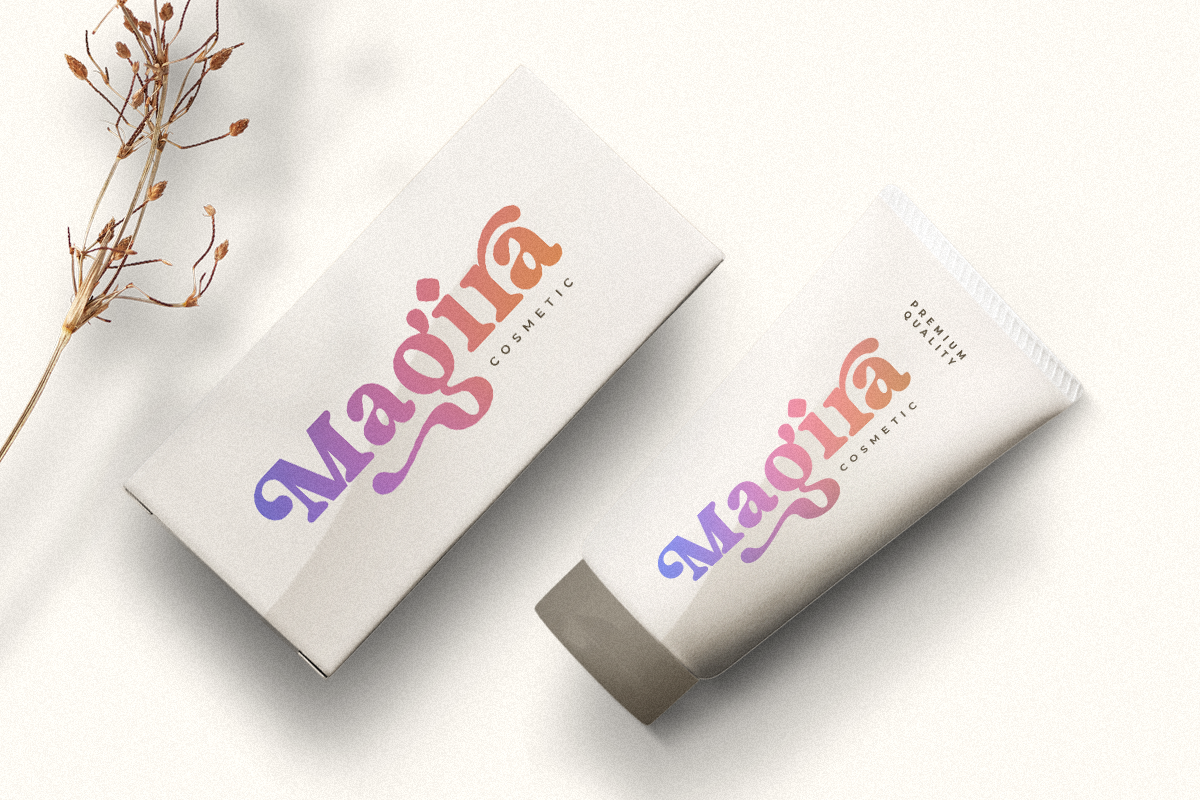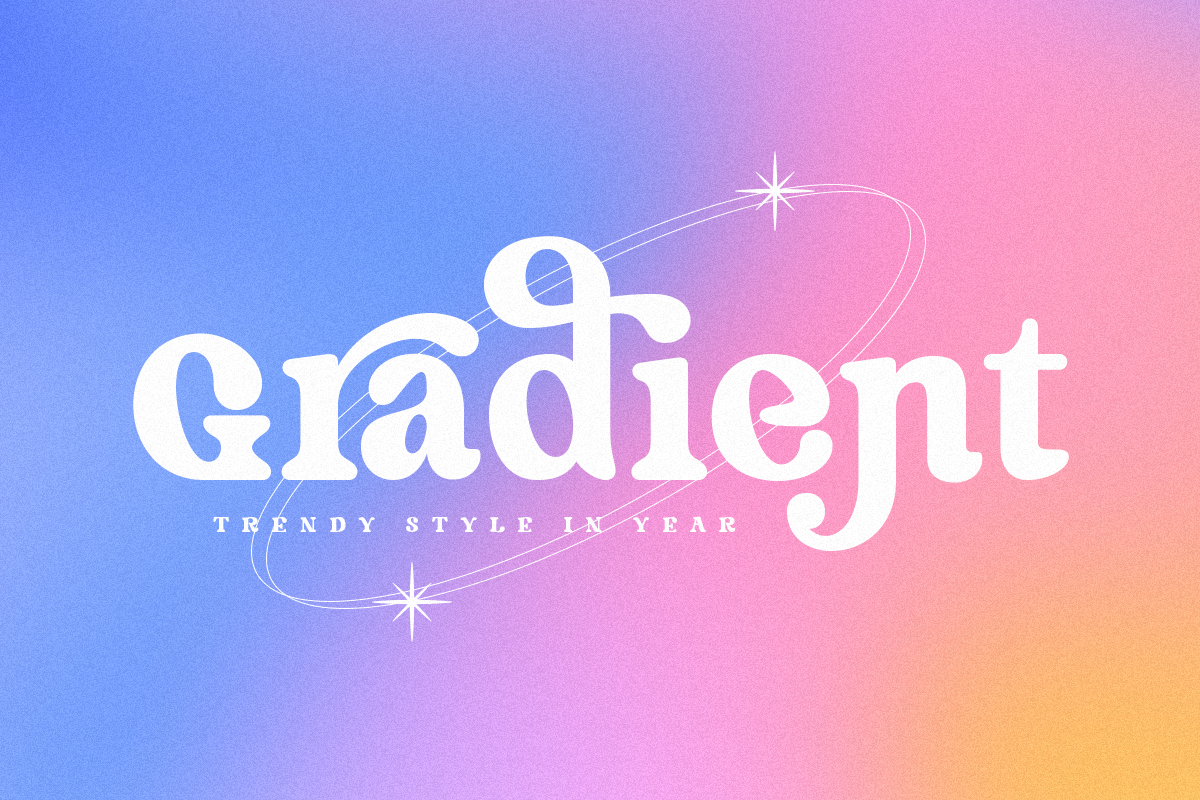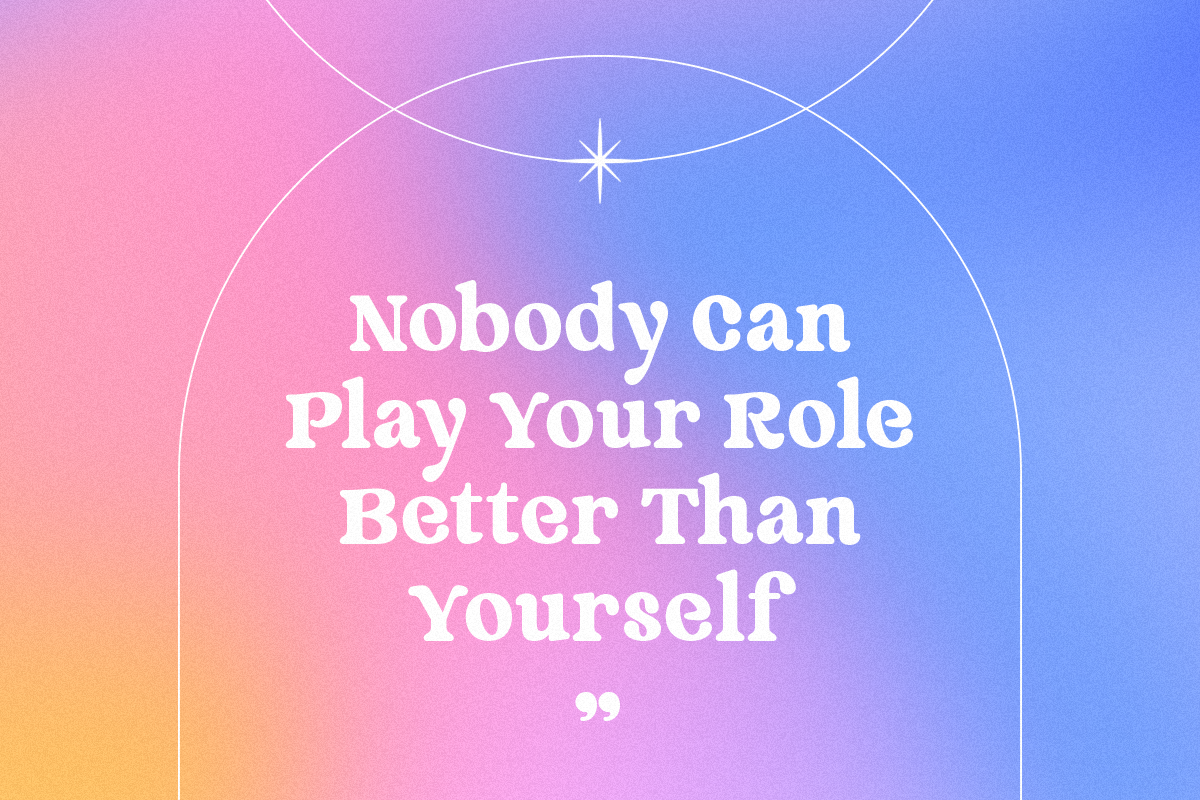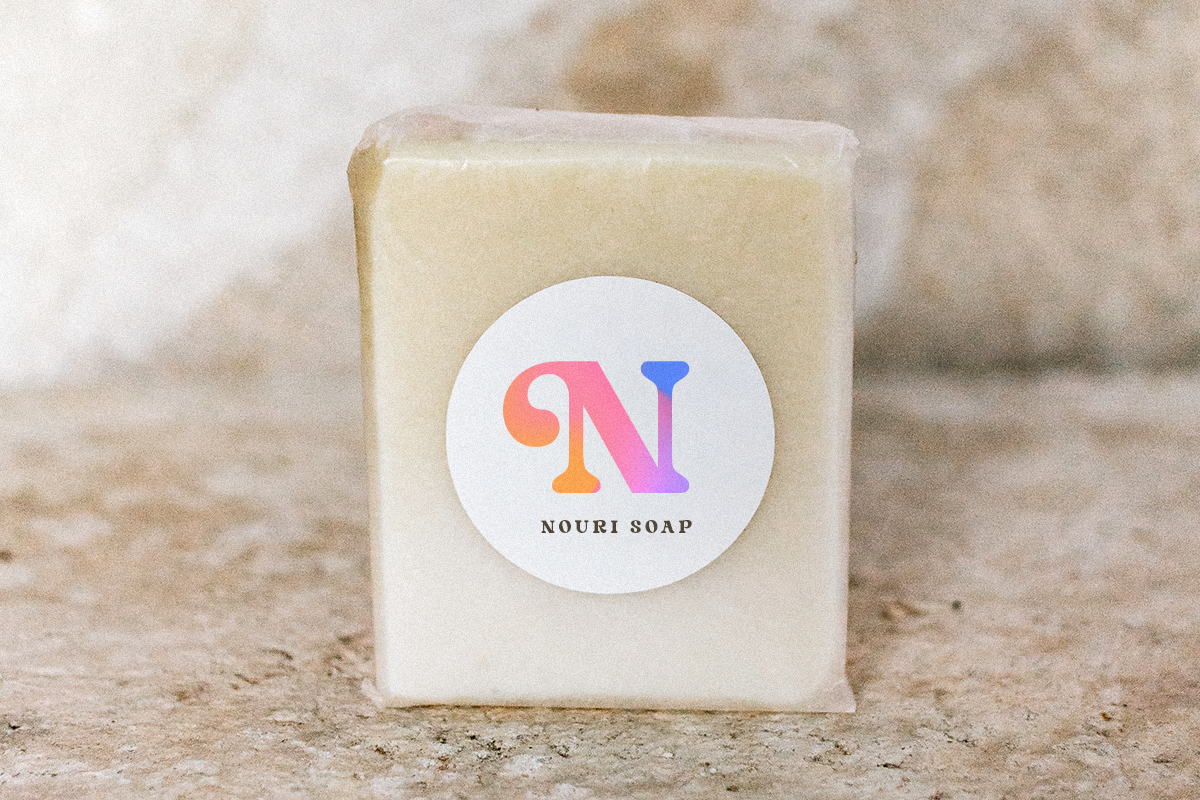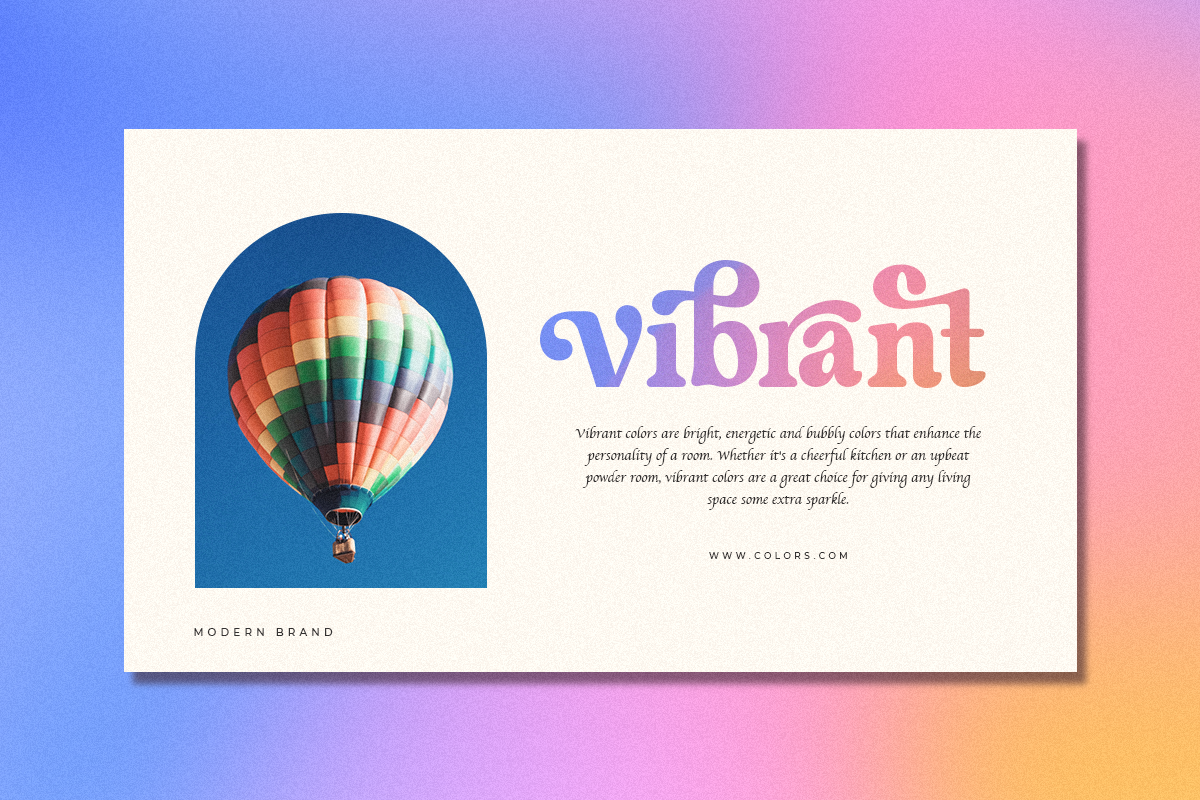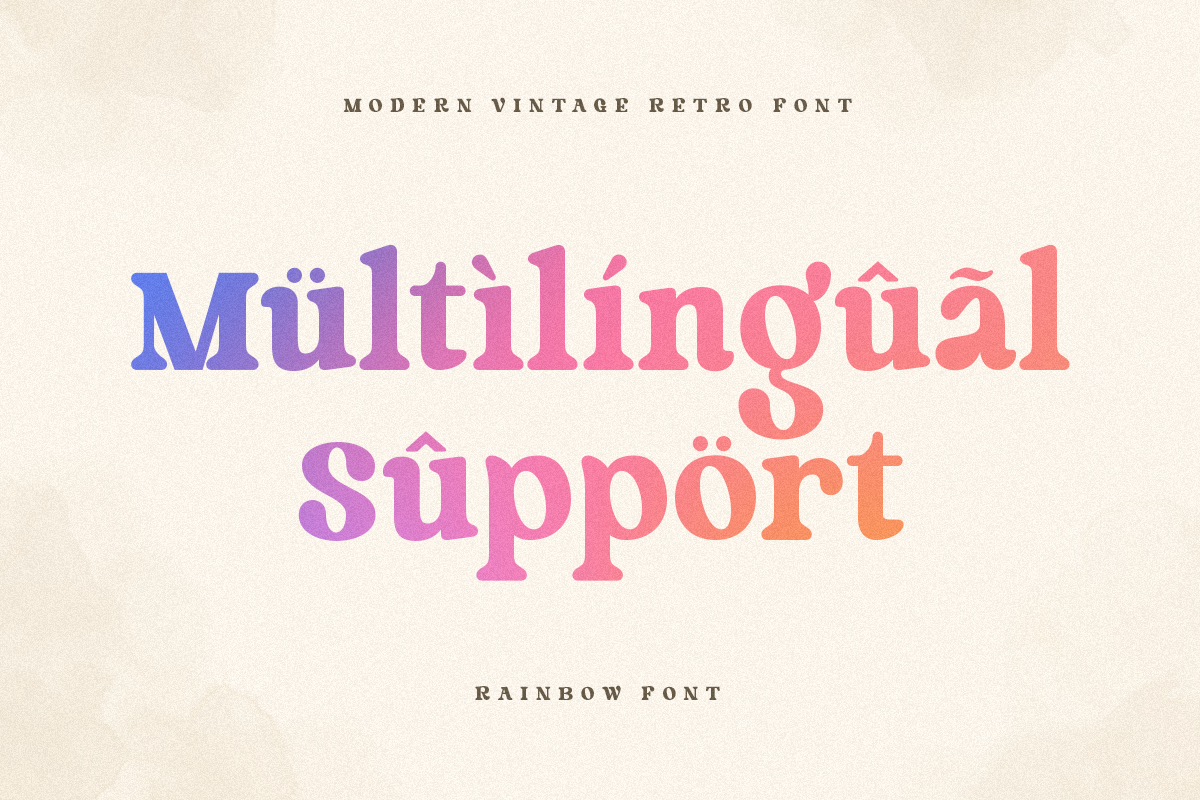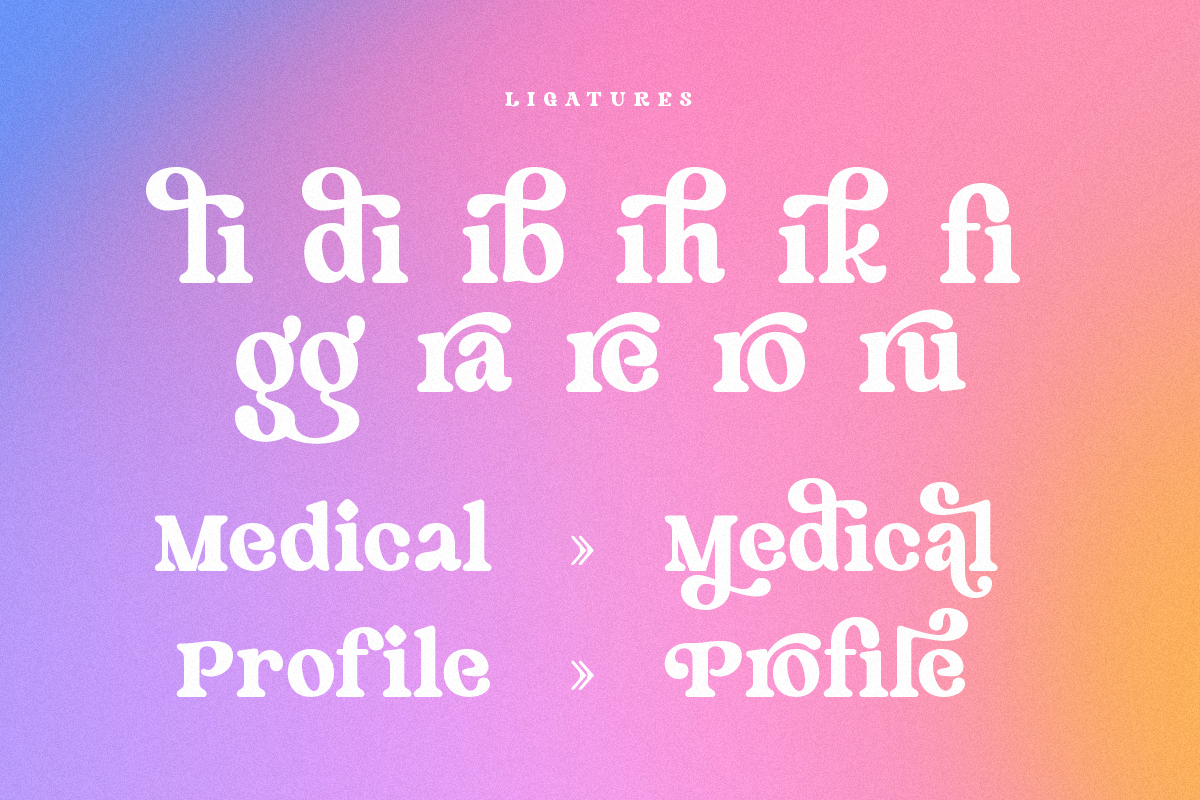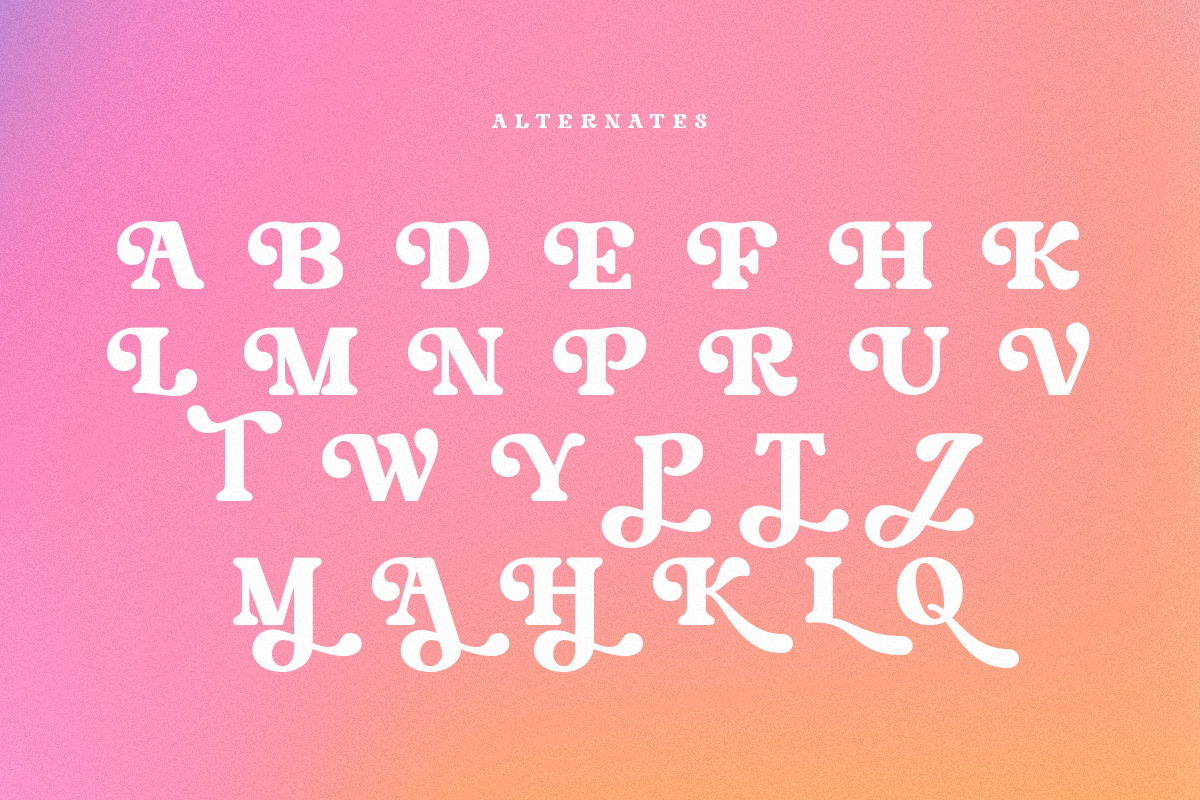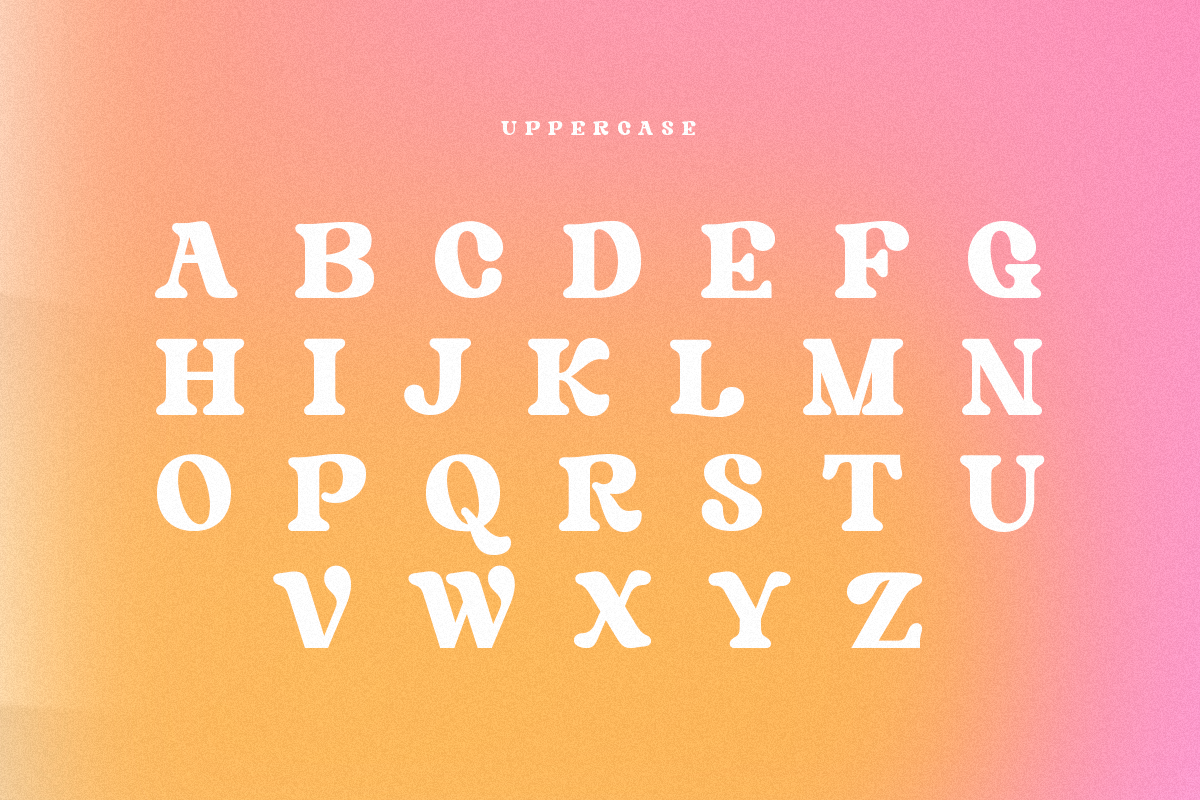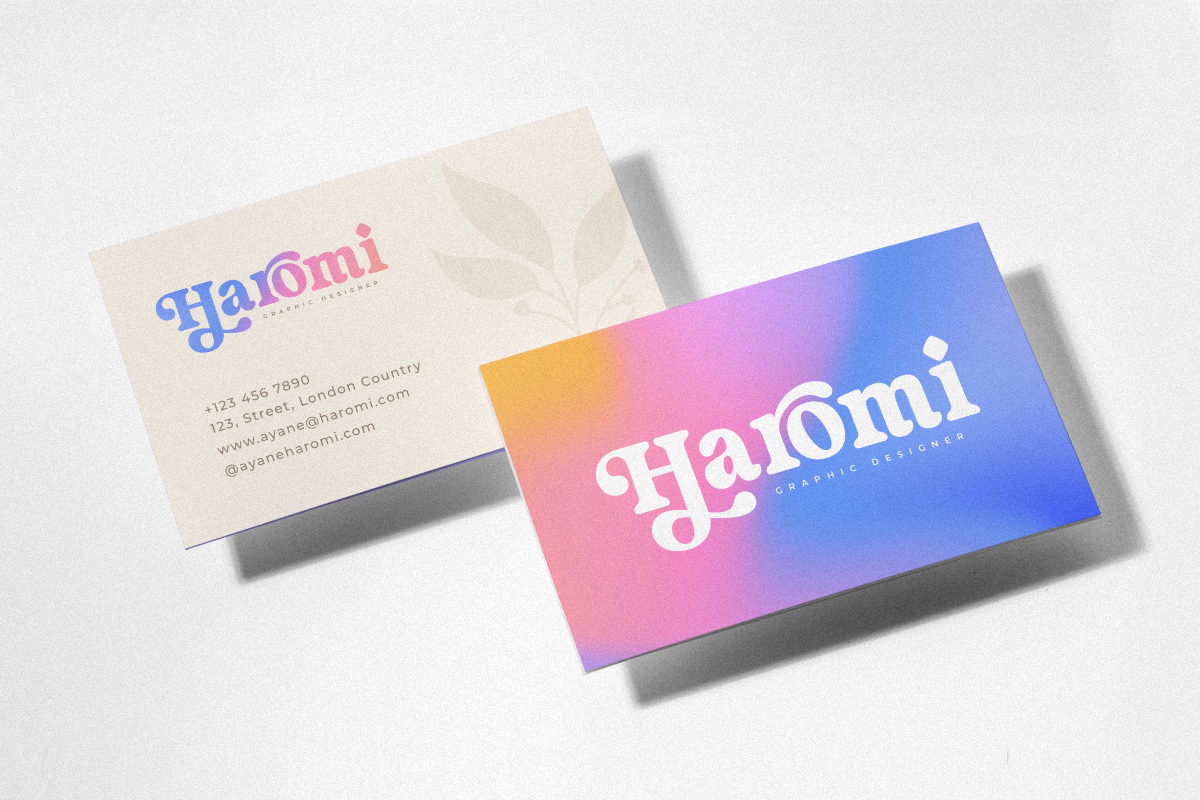
Rainbow - Modern Vintage Font
Rainbow is a Modern Vintage Display Font
A New Vintage font that we created special for Unique branding needs, with extra ligature in unique style that ready to add value of your brand. It's so nice to leverage designer or product owner that need solutions to make their design look more unique and vintage.
Rainbow Modern Vintage Display font ready with:
- Lowercase and Uppercase characters
- Numbers and Punctuations